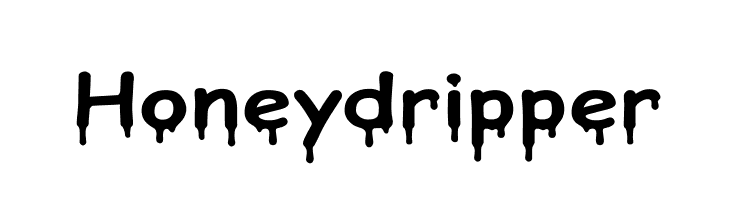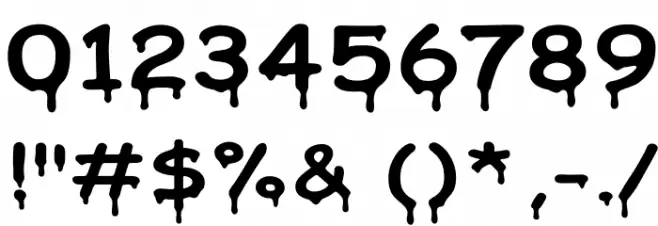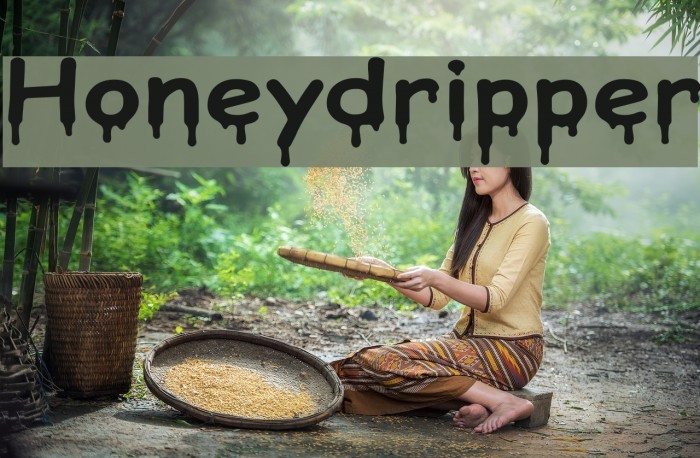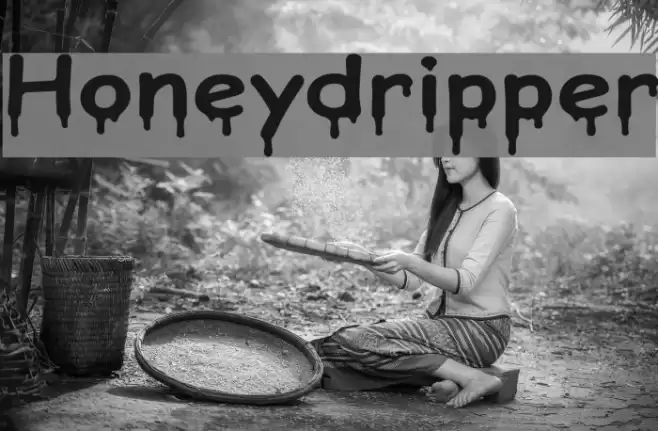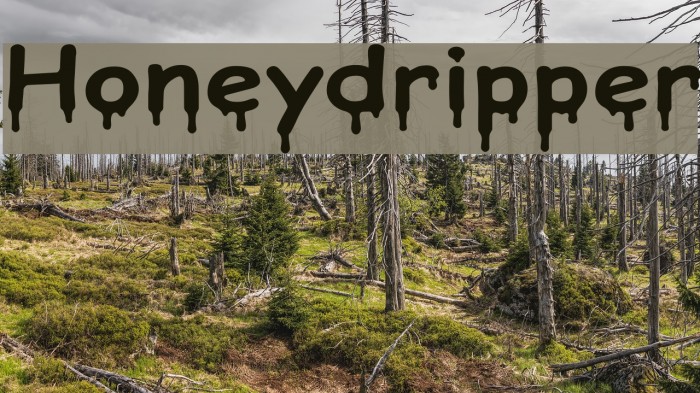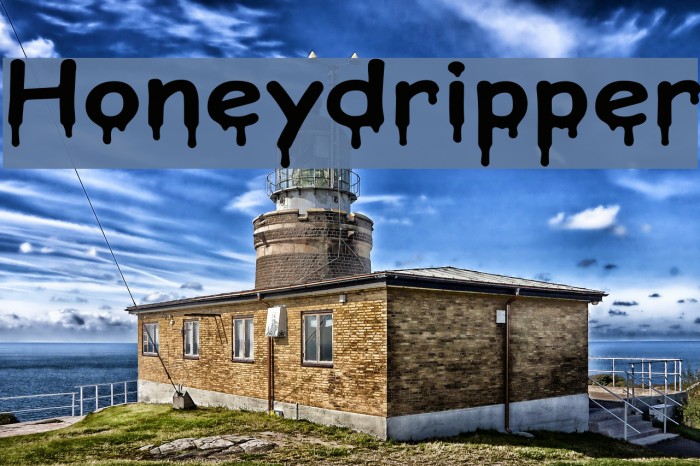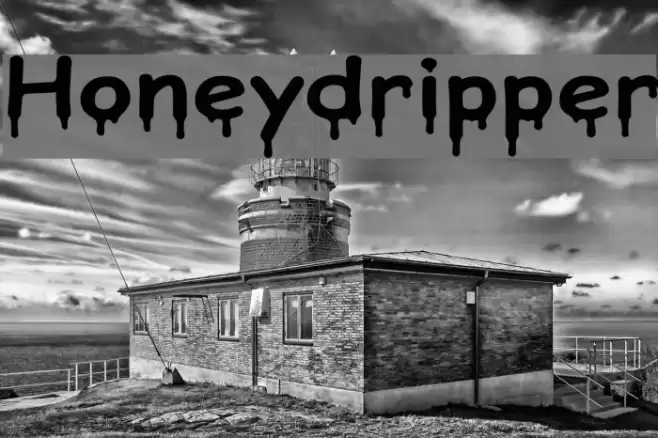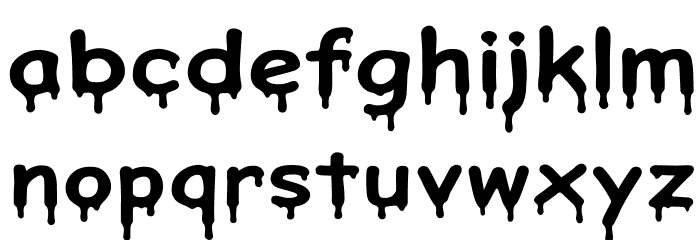
Honeydripper Font
Honeydripper Description
This playful and unique font features a dripping effect that gives the impression of melting or liquid letters. The characters are bold and rounded, with a consistent thickness throughout, creating a cohesive and eye-catching appearance. The dripping elements add a whimsical and creative touch, making it ideal for projects that require a fun and informal vibe. The uppercase and lowercase letters maintain a uniform style, while the numbers and special characters seamlessly integrate with the overall design. This font stands out for its artistic flair and distinctive personality.
| Proposed Projects | Perfect for Halloween-themed designs, children's book covers, playful posters, and creative branding projects. |